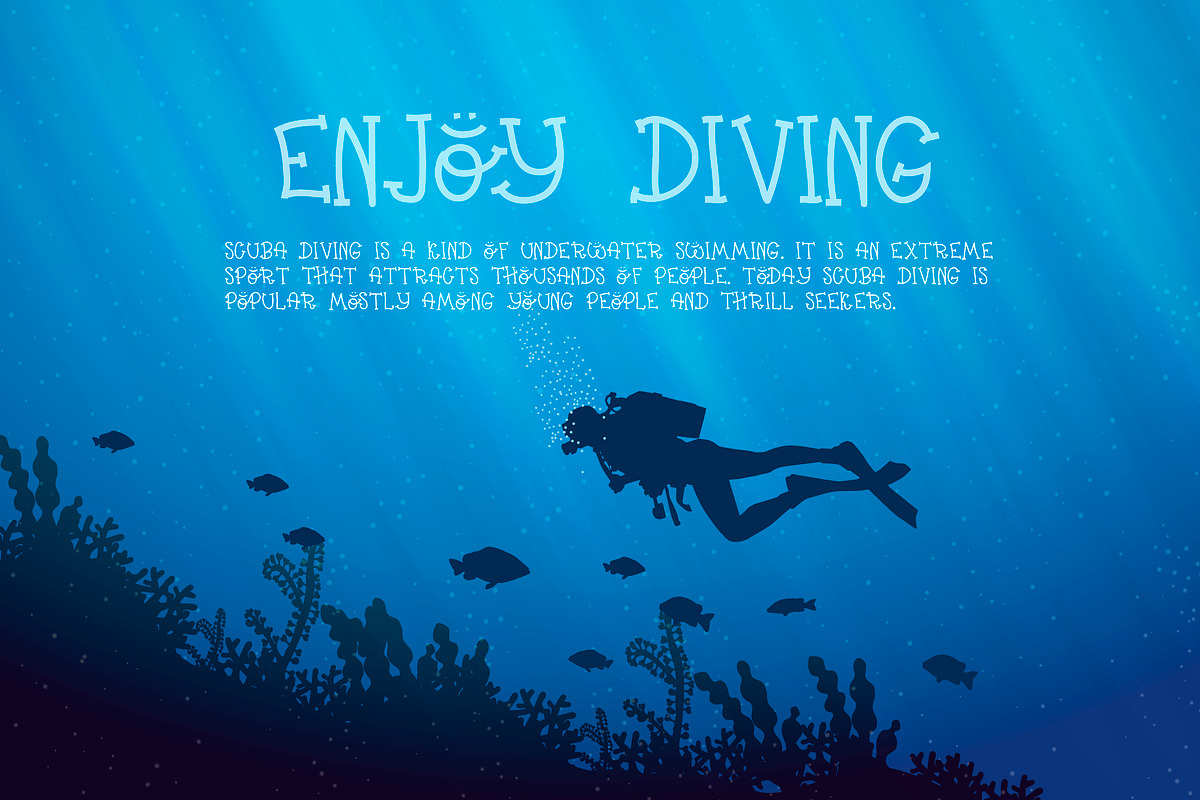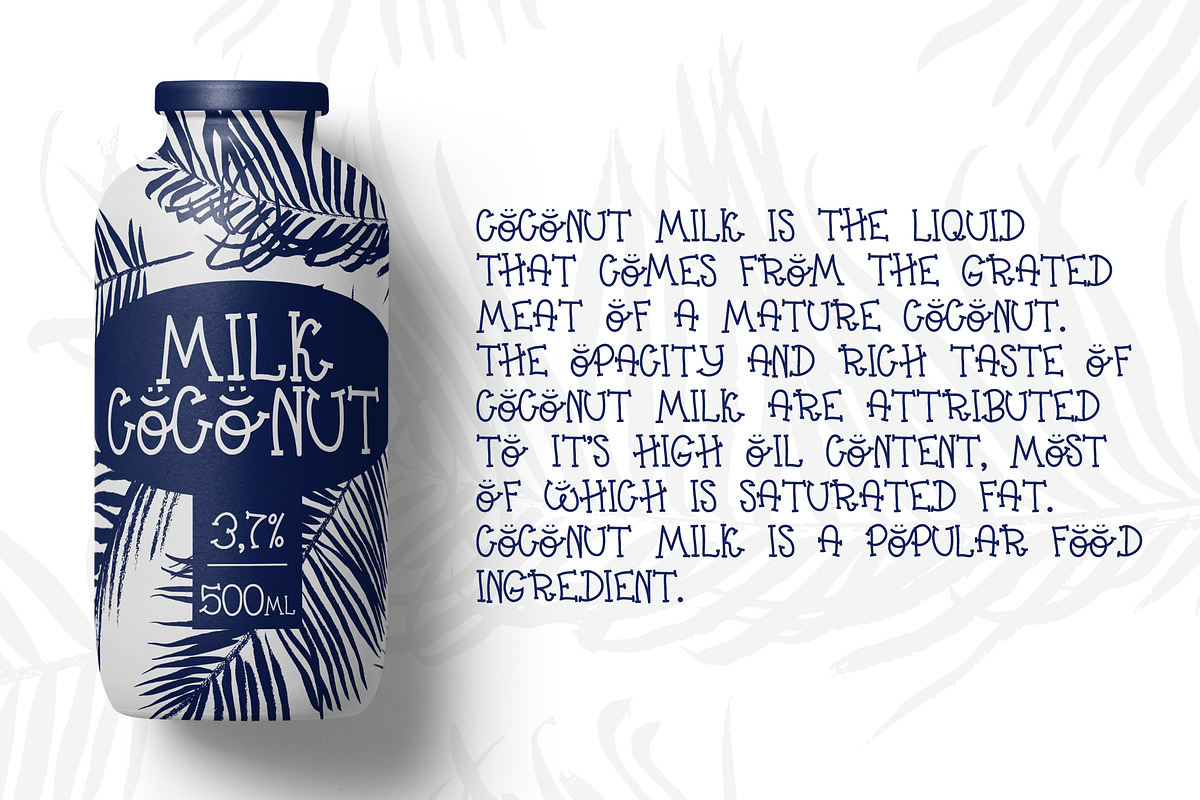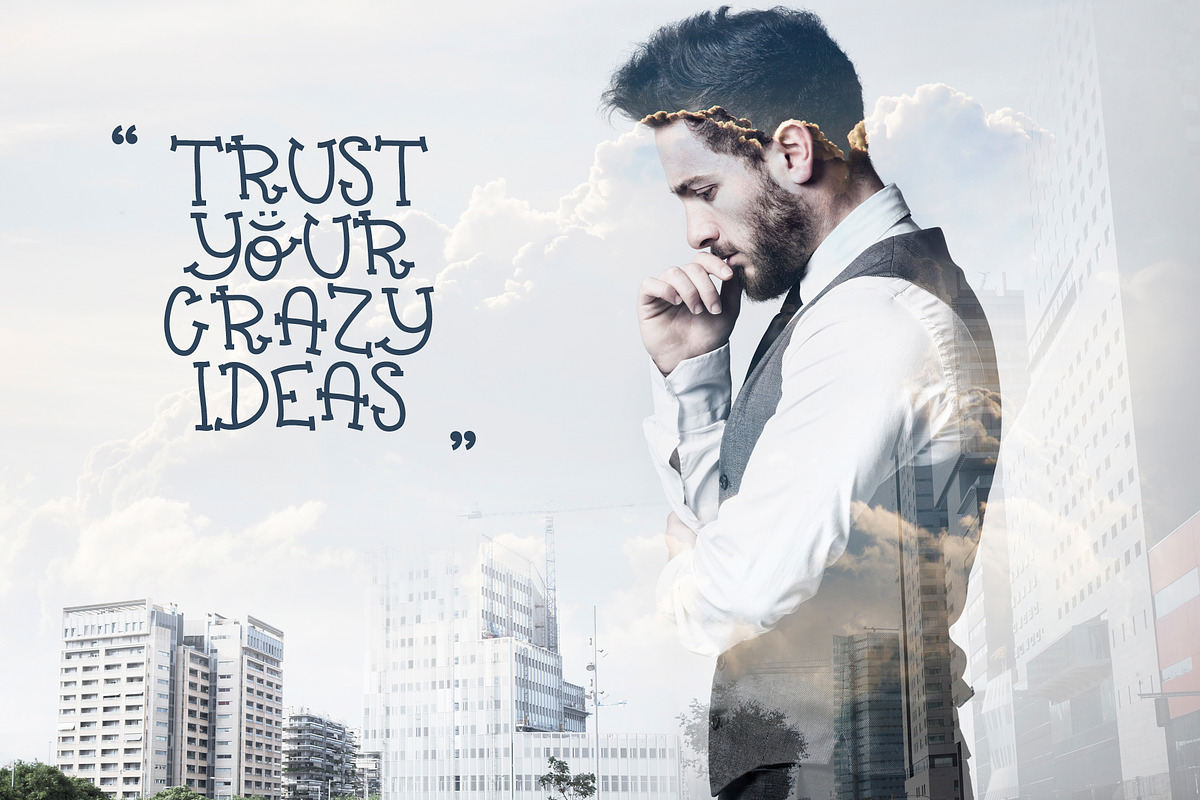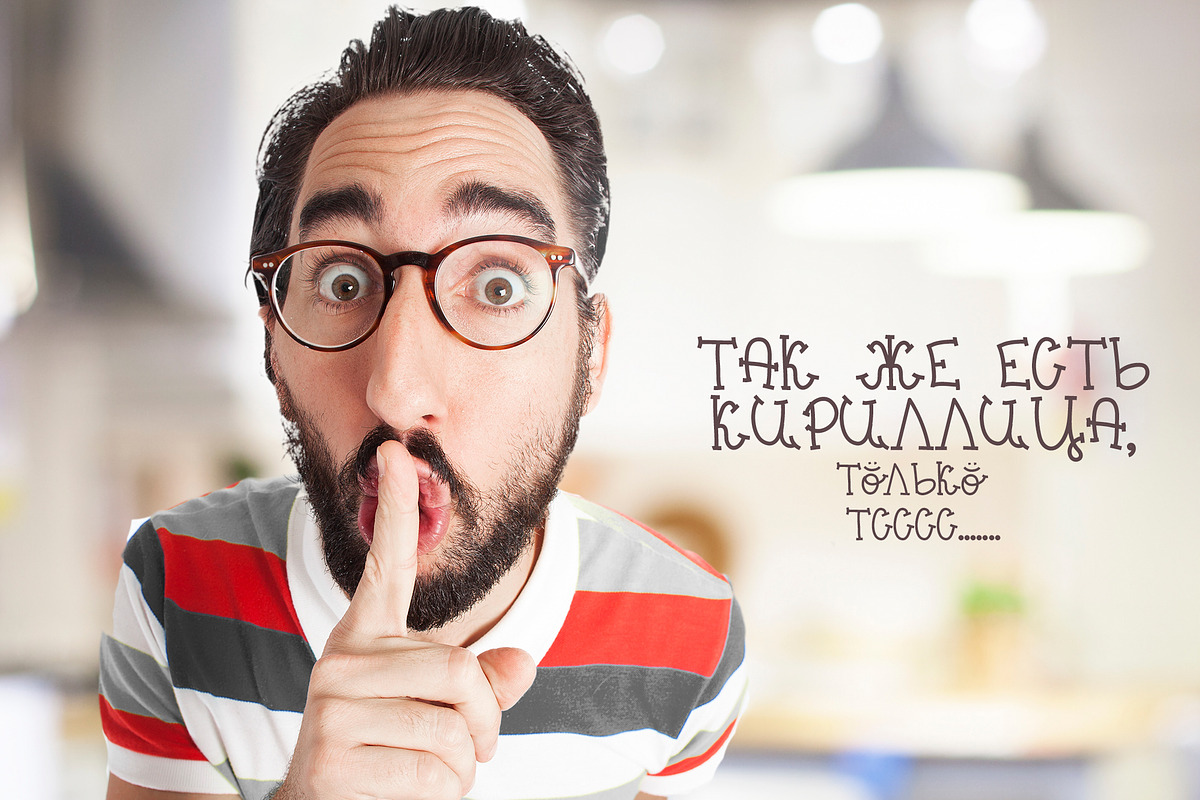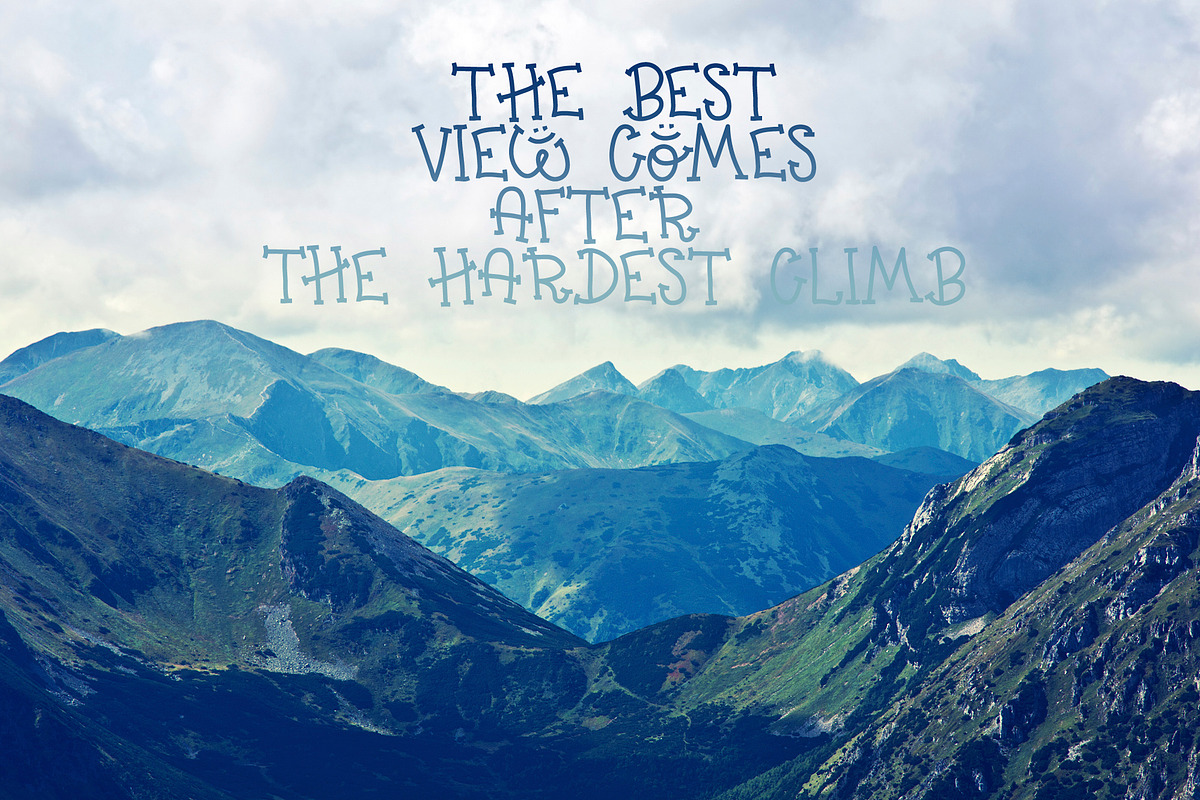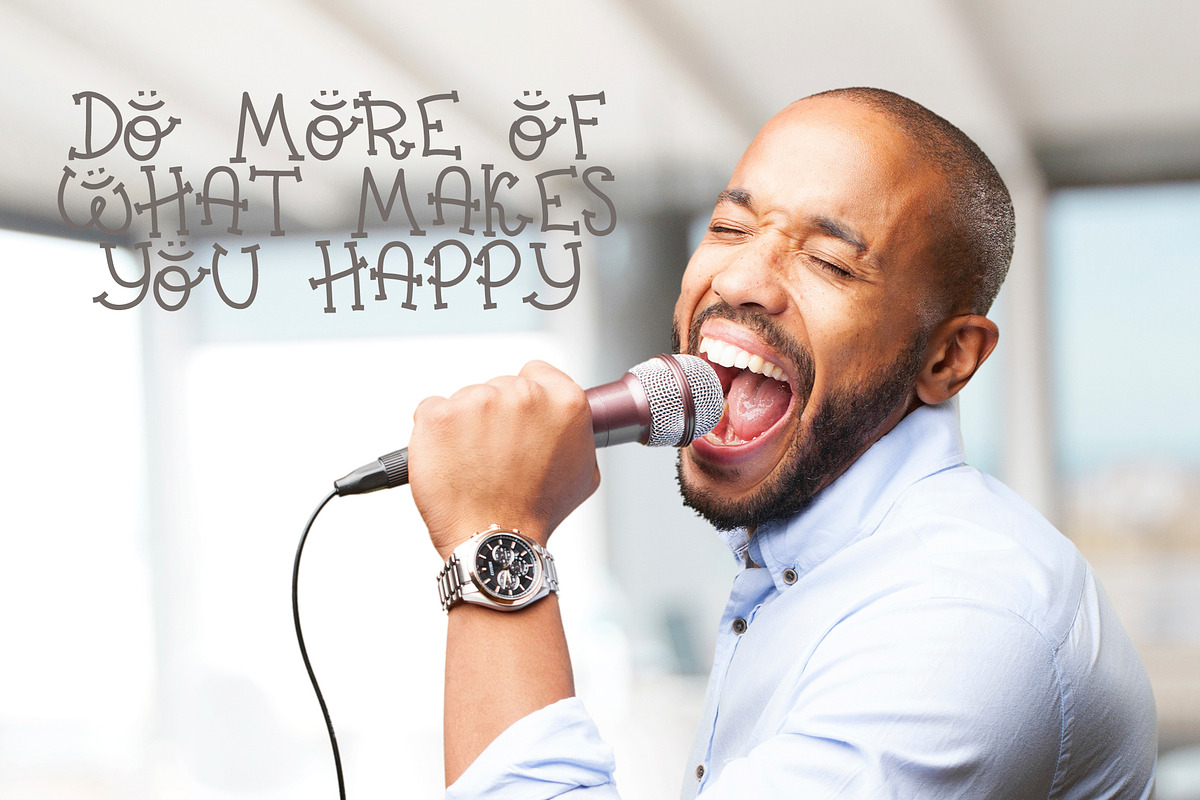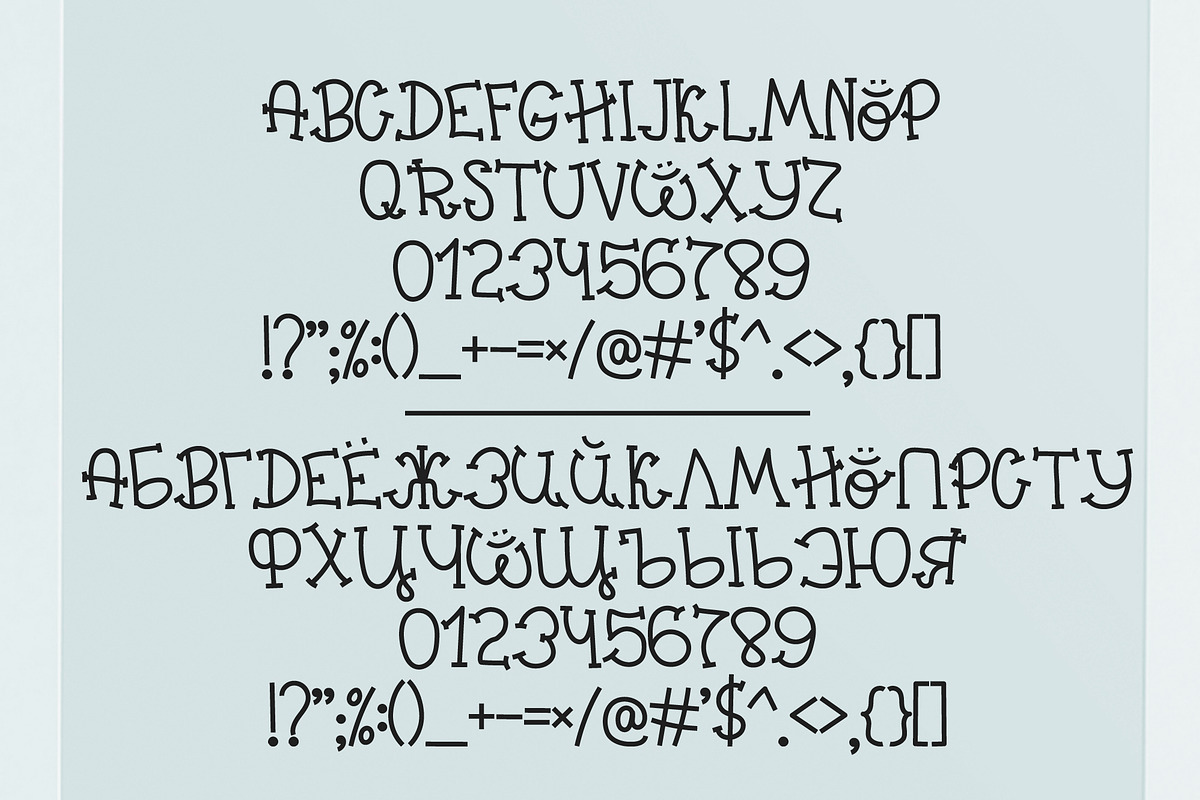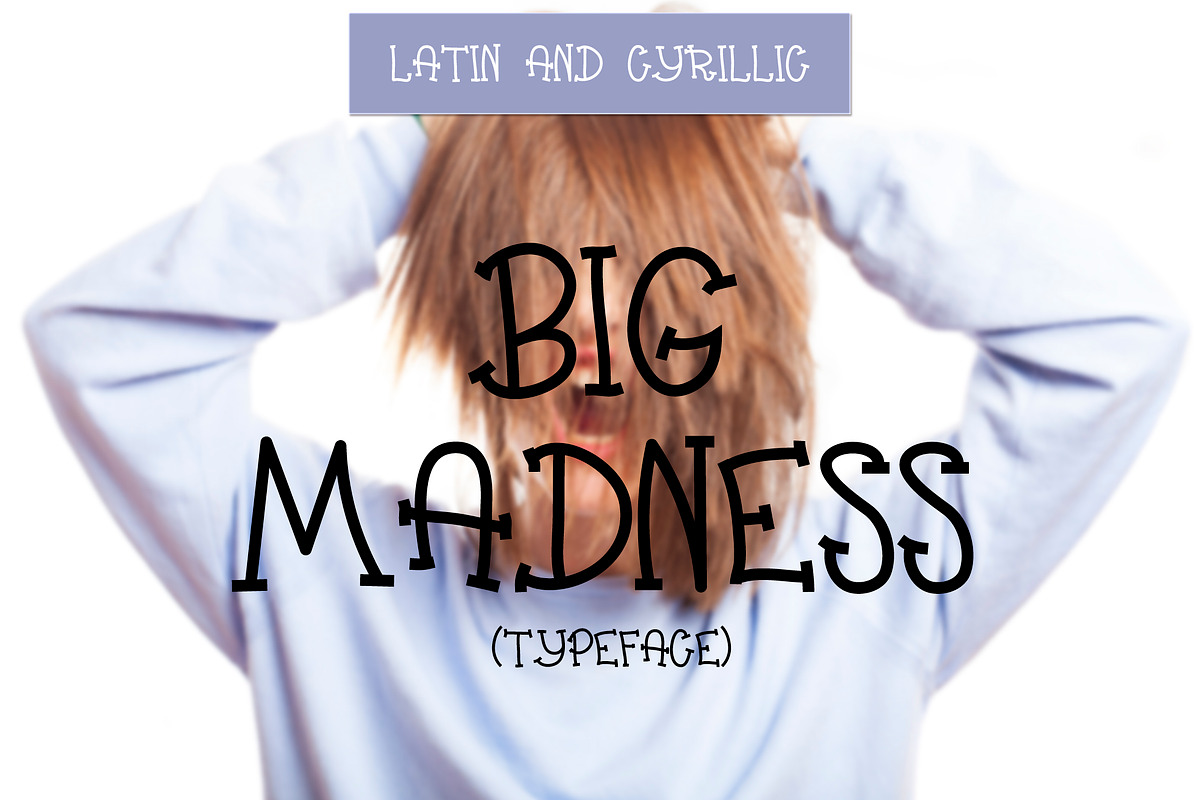
Font Big Madness (Latin & Cyrillic)
This rather playful and cheerful font will suit funny people and lovers of humor, as the phrases from boring and usual written by it turn interesting and amusing. The font supports both Latin and Cyrillic.